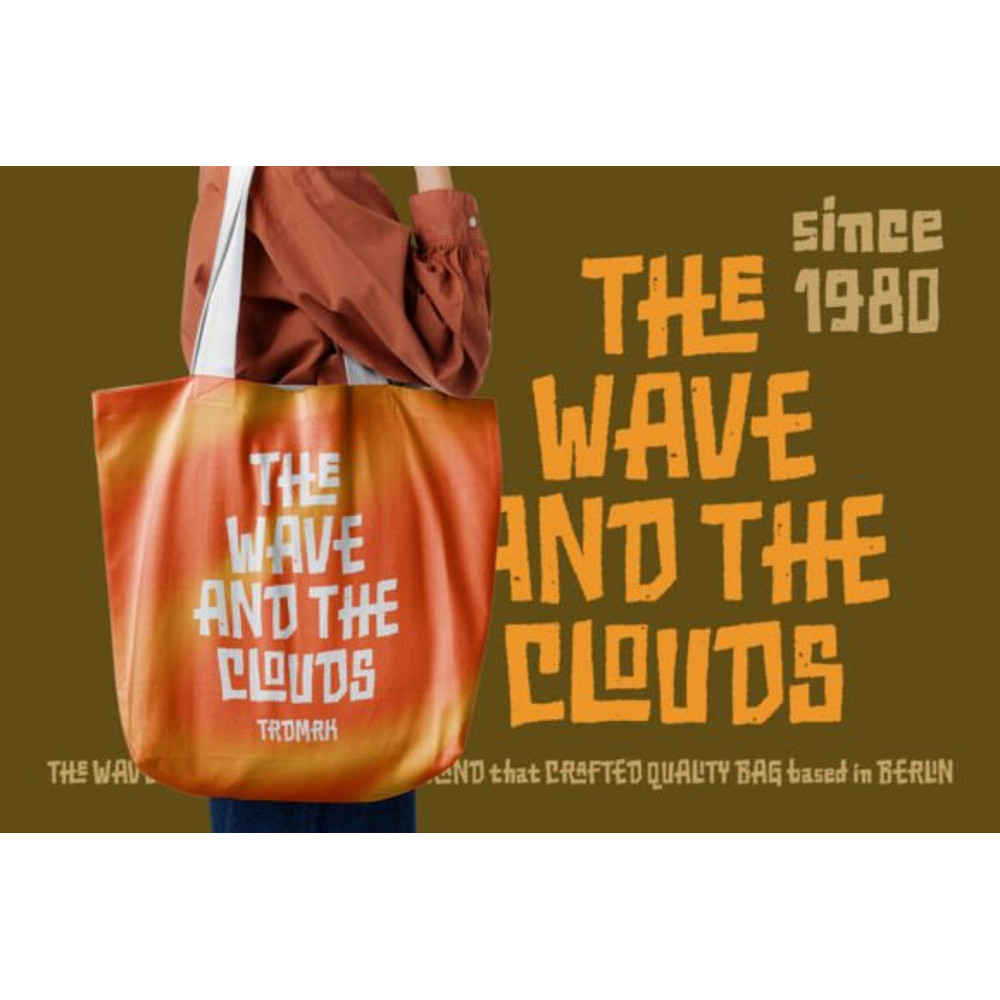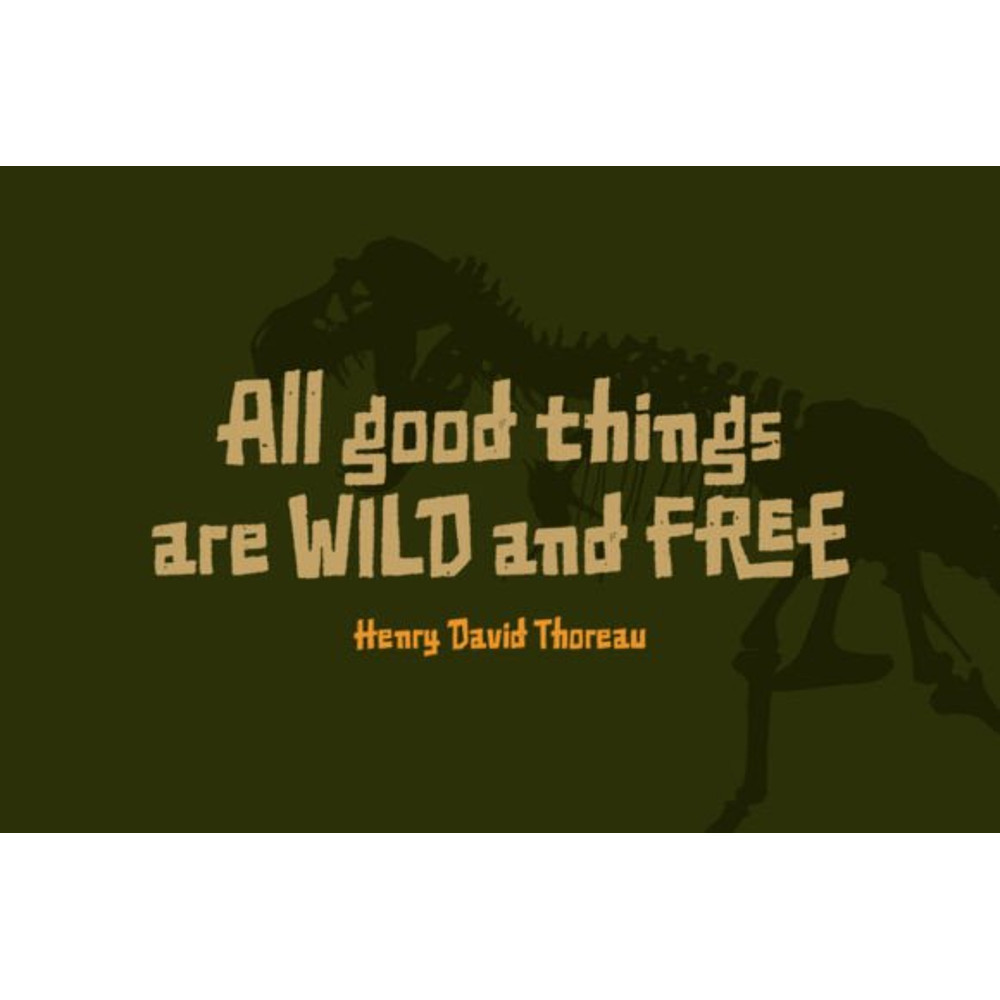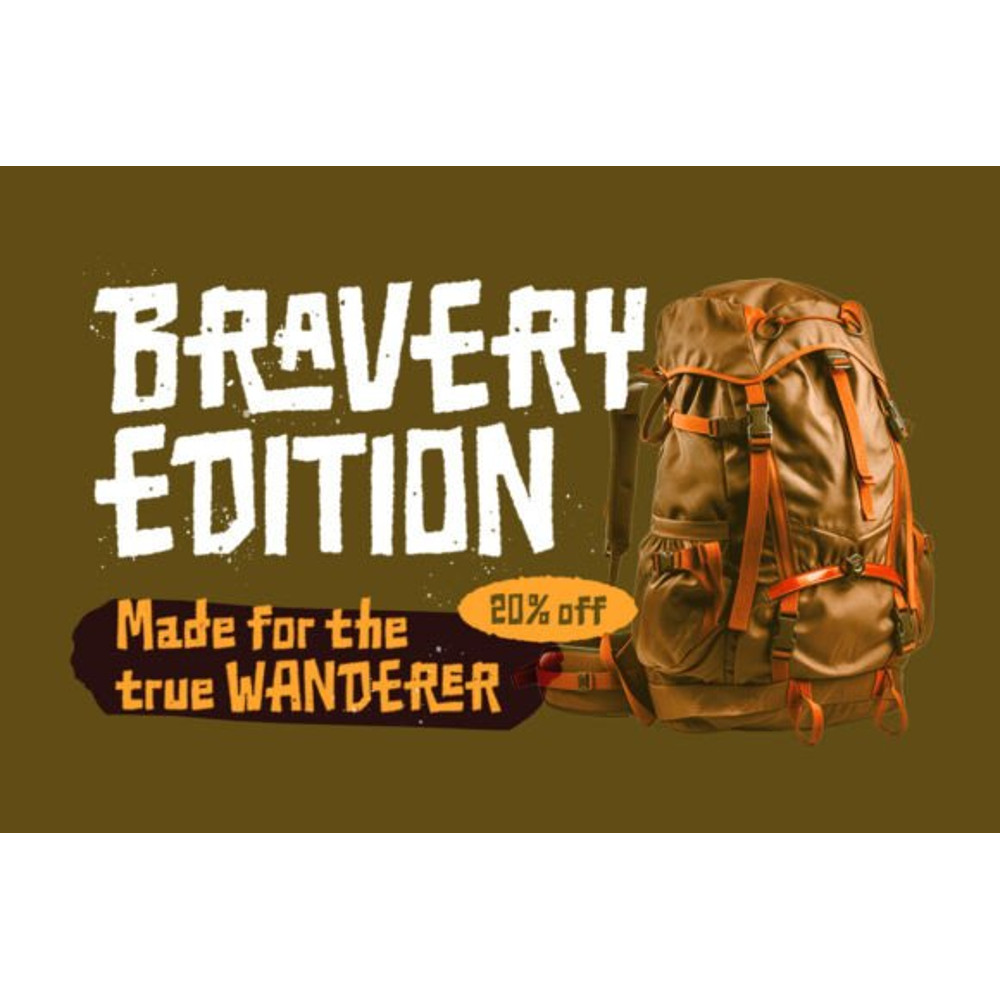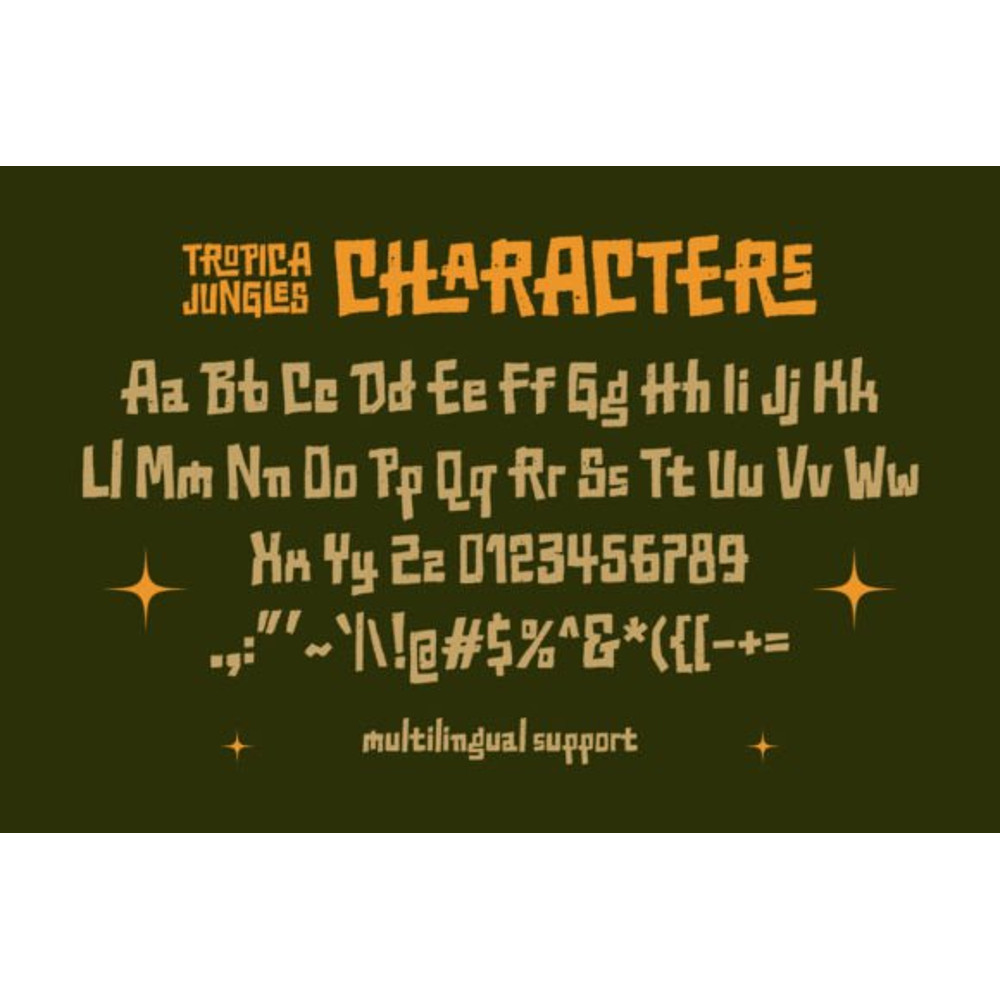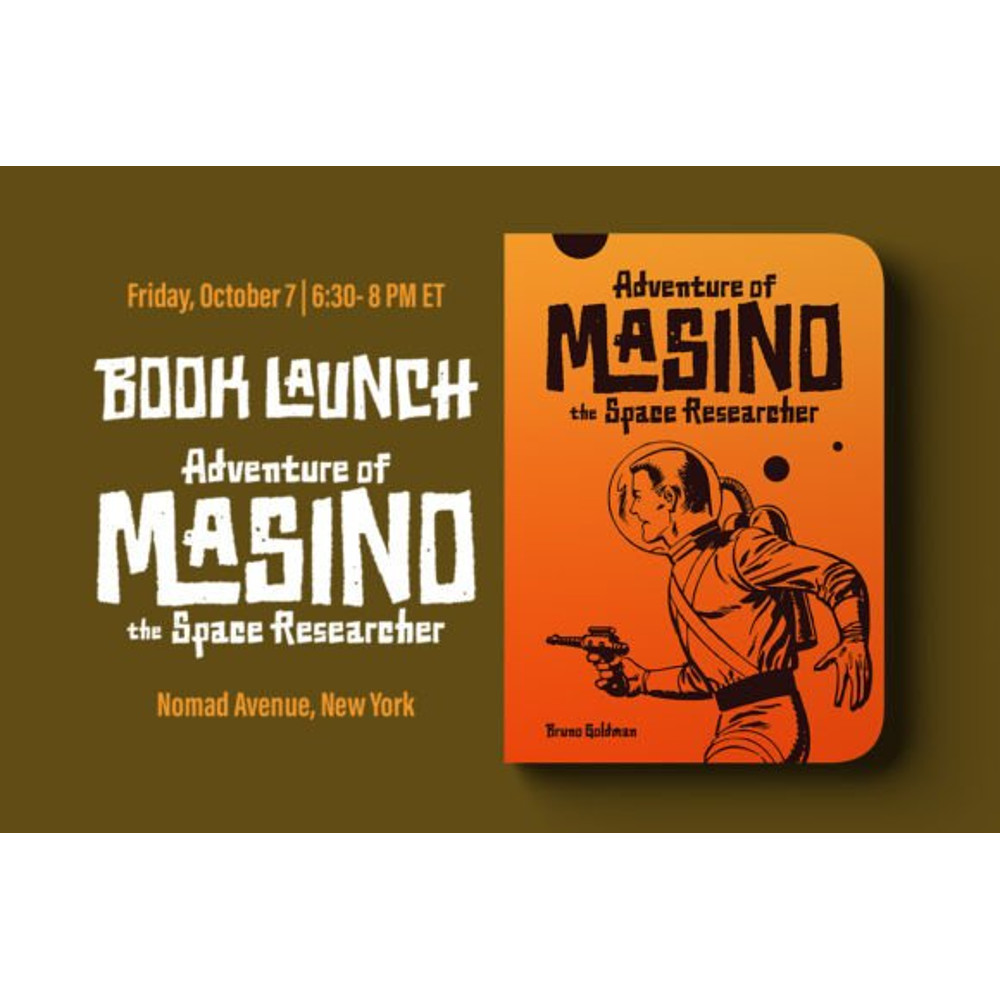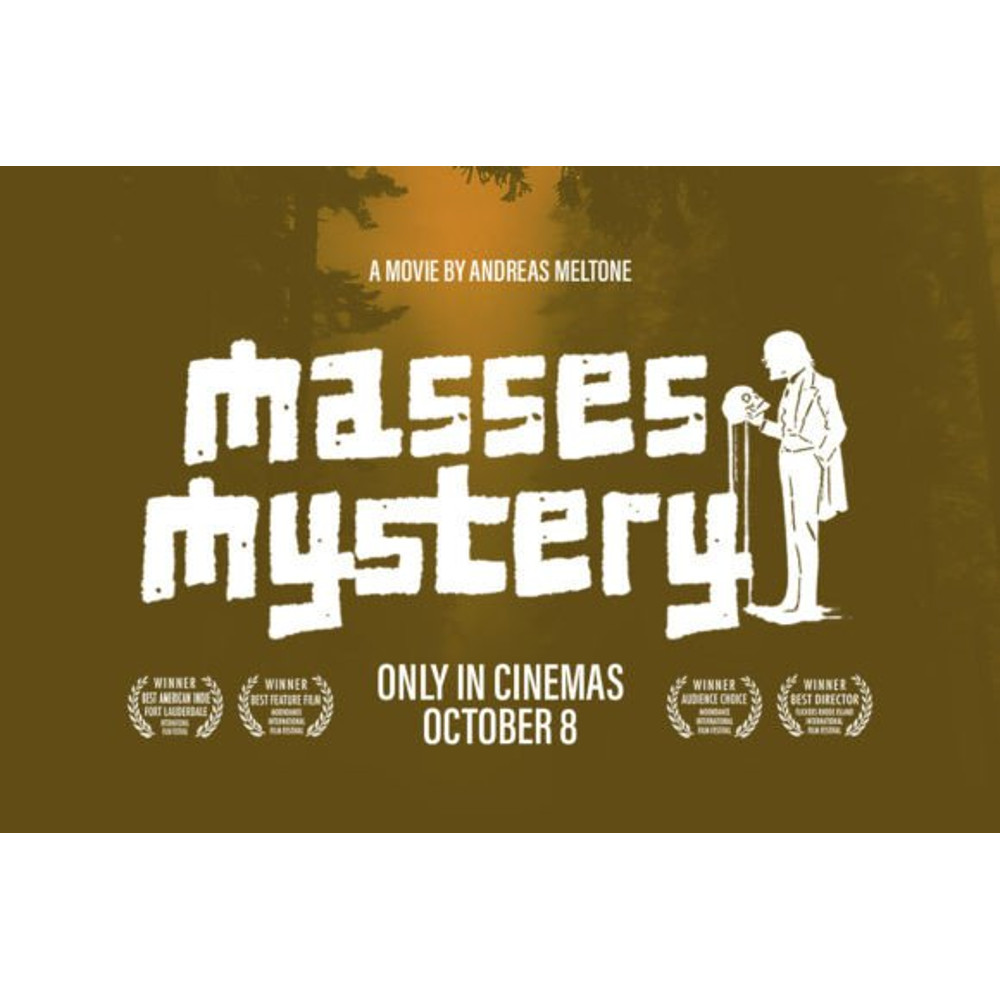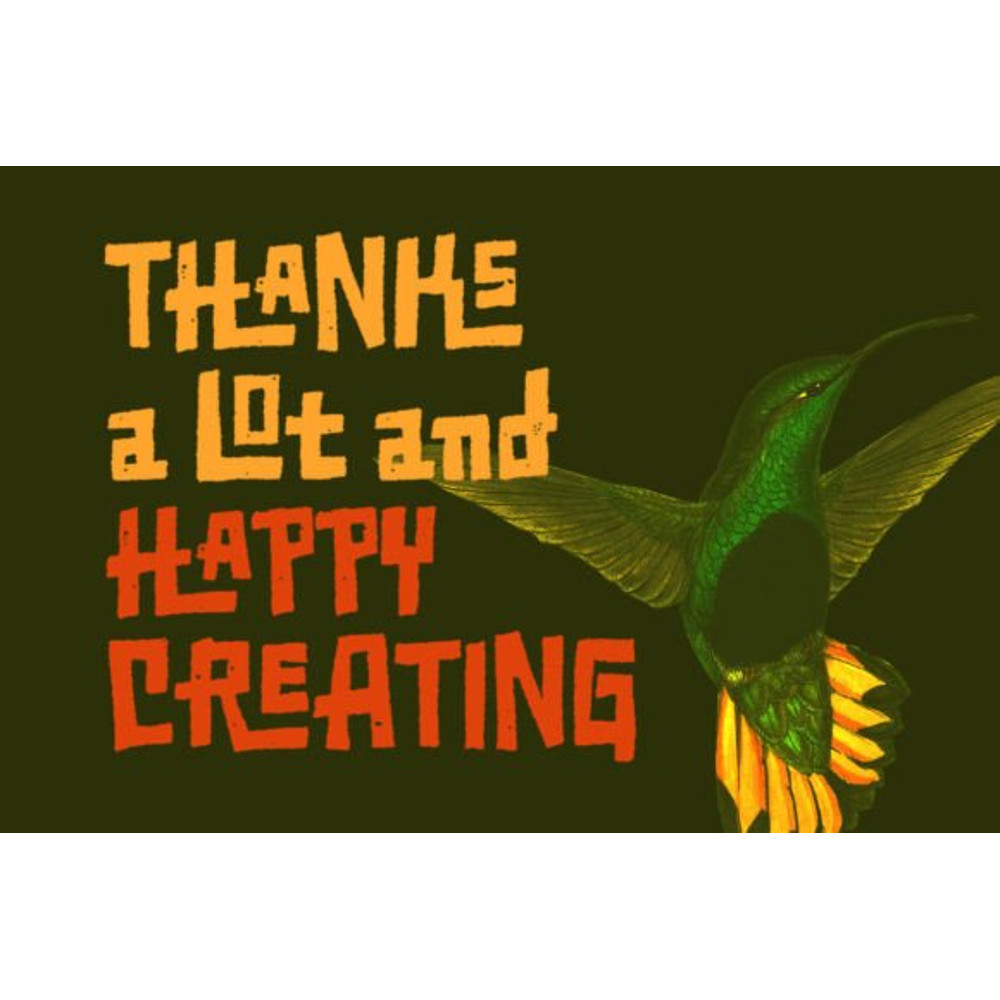
Tropica Jungles Font
Tropica Jungles is a textured display font with cartoon vibes. This font is perfectly made to be applied especially in logos, and other various formal forms such as invitations, labels, logos, magazines, books, greeting/wedding cards, packaging, fashion, makeup, stationery, novels, labels, or any type of advertising purpose.